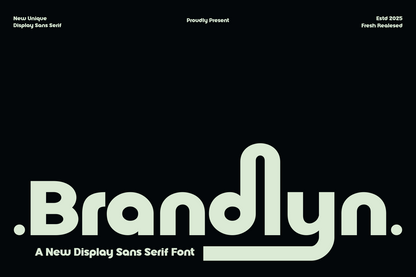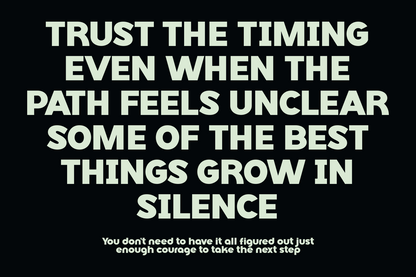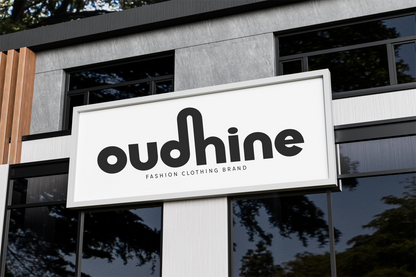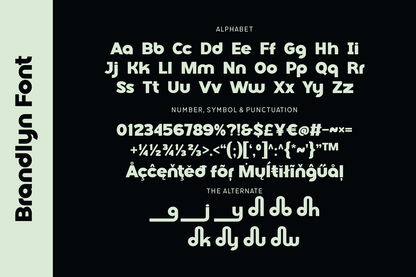
Brandlyn is a bold and modern display sans serif font that exudes personality and precision. Its standout feature is the unique, tubular curvature applied to selected characters, creating an iconic and instantly recognizable look.
With full uppercase and lowercase sets, extensive punctuation, multilingual accents, and a creative alternate character set, Brandlyn ensures both versatility and visual interest.